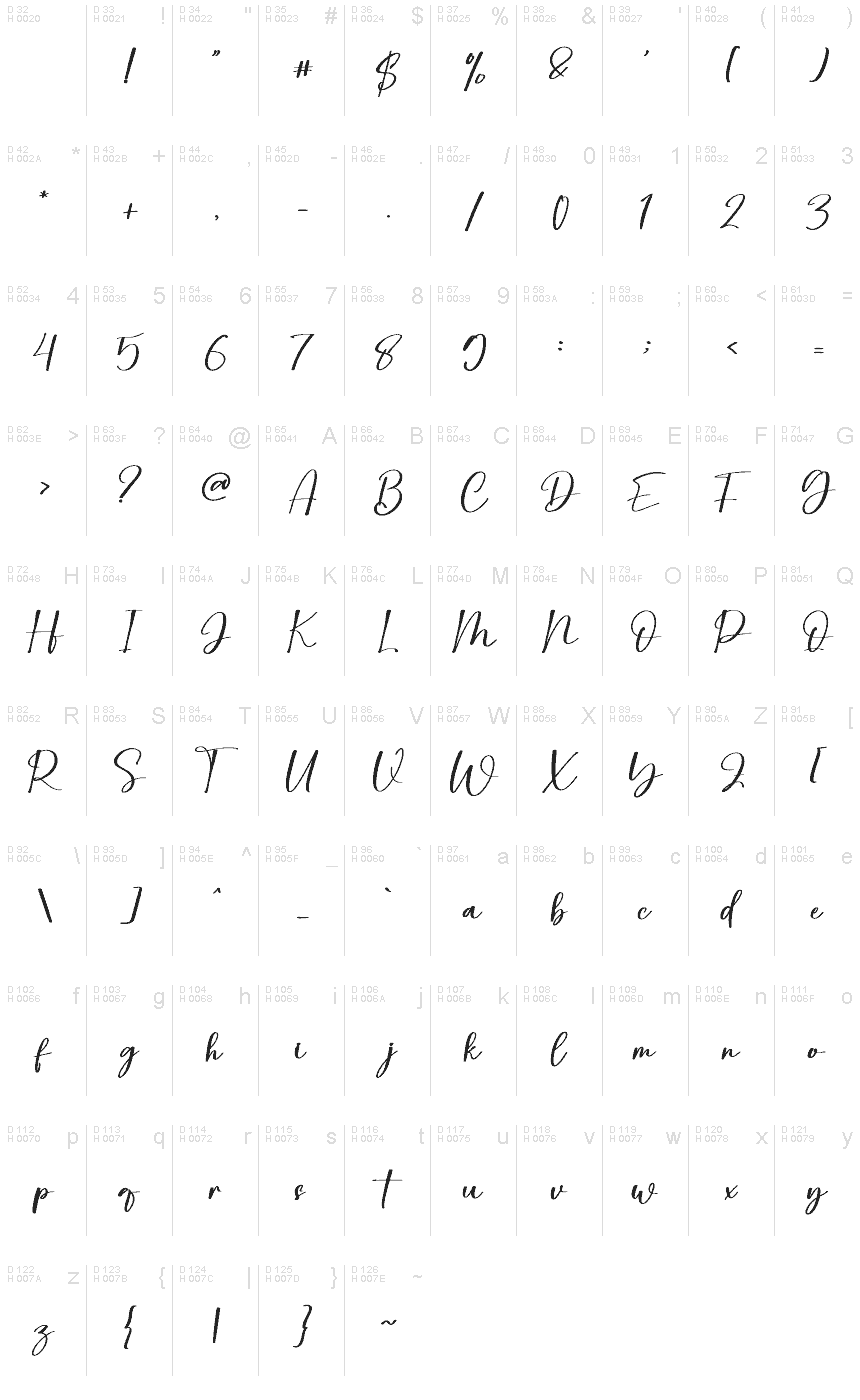
Optional
Optional font by Inermedia Studio is handwritten and free, making it a fantastic addition to your digital resource library. Each letter displays an elegant, flowing quality that’s important for capturing the right look in classy sophisticated typography designs. This contemporary typeface can easily be described as chic and expressive, given its appealing overall form and shape.
Without complicating things too much, let us share some applicable use cases for this incredible set of letters. These include apparel branding/ design (t-shirts), logos, signature writings combined with text like in historical research papers or books. It’s suited as well for magazine titles or headlines on front pages as well as posters.